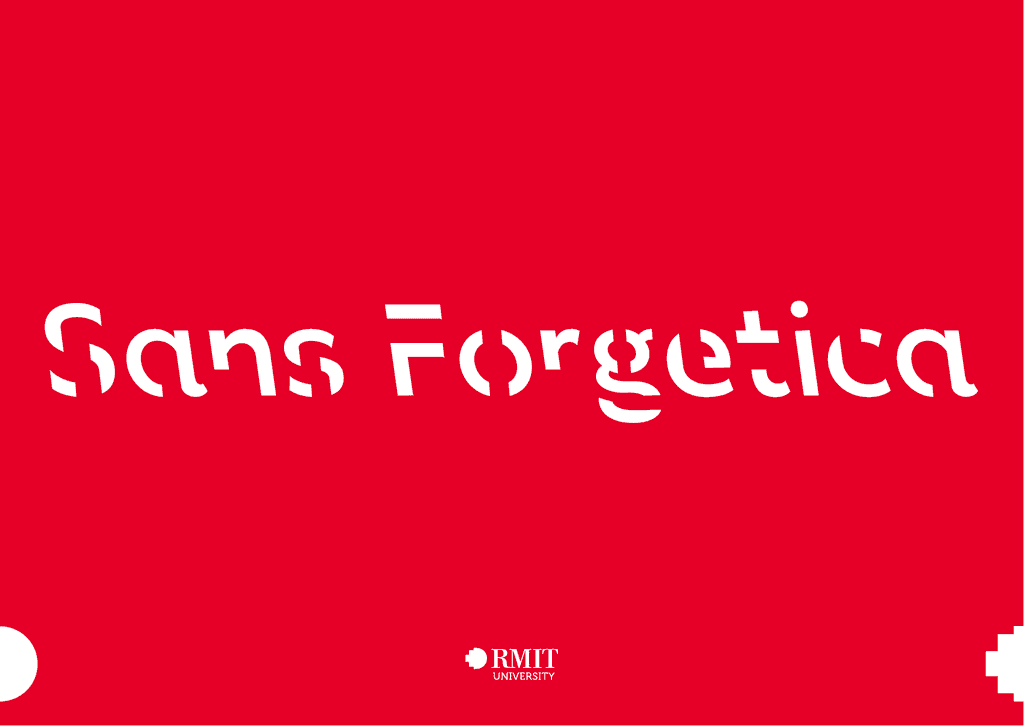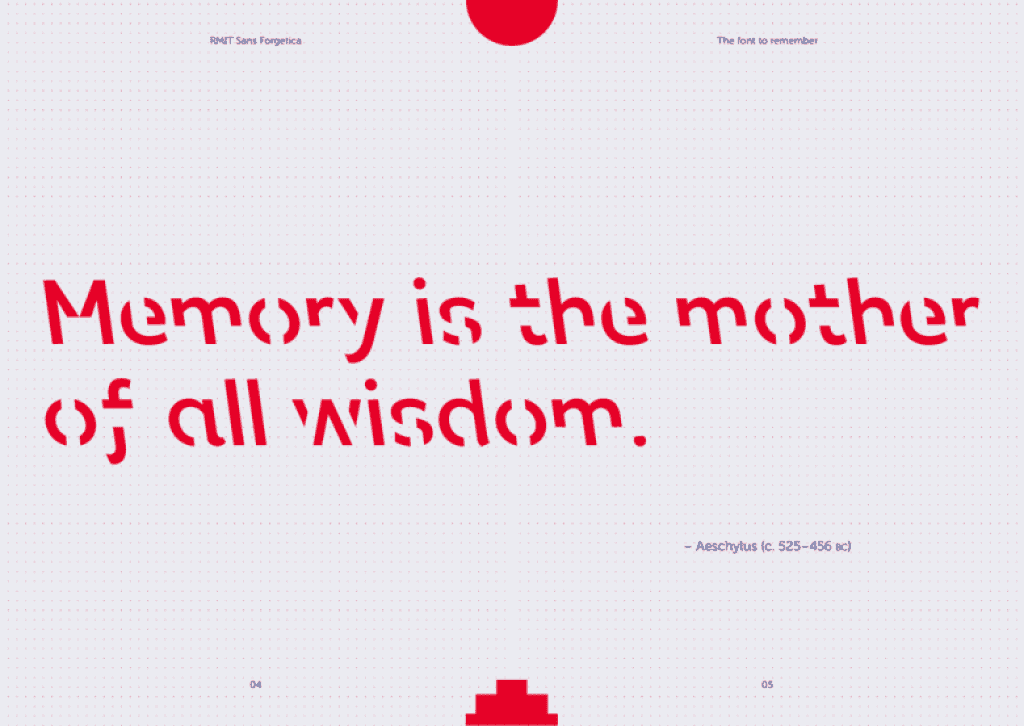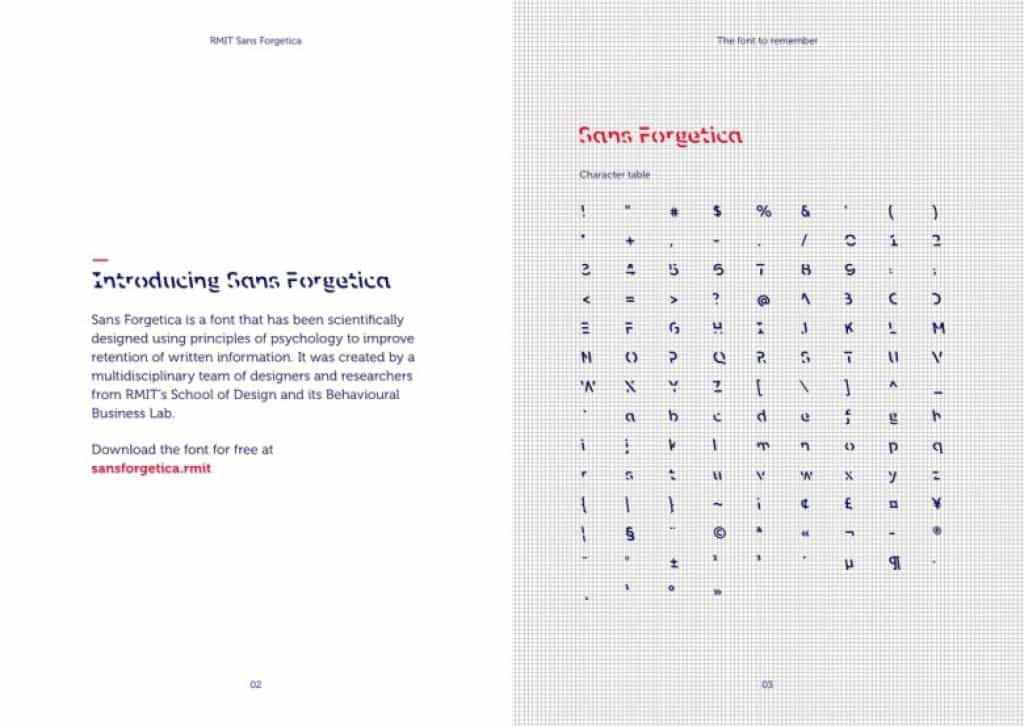
Sans Forgetica font is created to help learners retain notes better with the principles of cognitive psychology. It was designed by an inter disciplinary team of designers and behavioral scientist at RMIT University.